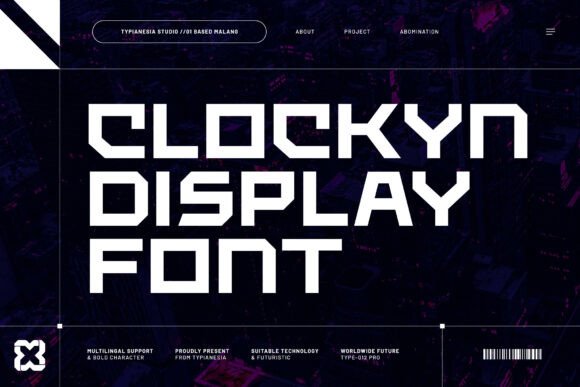
Introducing Clockyn Font: The Ultimate Display Typeface for Modern Designs
In the realm of digital design, a font can make or break the visual identity of a project. For those seeking a bold, futuristic, and attention-grabbing typeface, Clockyn Display Font emerges as a game-changer. Specifically crafted to embody a modern and technological aesthetic, Clockyn is perfect for a wide array of applications, from website design and sci-fi narratives to branding, posters, and digital advertising.
The Essence of Clockyn Display Font
Clockyn Display Font is distinguished by its bold and geometric characters, which lend it a unique, futuristic appeal. This typeface is not just about aesthetics; it’s about making a statement. Its “blocky” and assertive presence ensures that any message conveyed through it is clear, memorable, and impactful. Whether you’re designing a logo, crafting a poster, or creating a theme for esports, Clockyn’s solid characters and multilingual support make it an incredibly versatile choice.
Applications of Clockyn Display Font
The versatility of Clockyn Display Font is one of its most compelling attributes. Here are some of the key areas where Clockyn truly shines:
- Website Design: Elevate your website’s visual identity with a modern and technological look that captures visitors’ attention.
- Sci-Fi and Cyberpunk: Perfect for narratives and projects that transport audiences to futuristic worlds.
- Branding: Create a lasting impression with a bold and memorable brand identity.
- Posters: Ideal for posters that need to stand out and convey a message powerfully.
- Game Titles and Esports Themes: Give your game or esports event a professional and competitive edge.
- Advertising Campaigns: Use Clockyn to make your ads more engaging and noticeable.
- Digital Technology: Showcase your tech products or services with a modern and sleek typographic style.
- Logos: Design logos that are not only visually appealing but also convey a sense of innovation and forward-thinking.
Why Choose Clockyn Display Font?
Choosing Clockyn Display Font for your project comes with several benefits:
- Multilingual Support: Reach a broader audience with a font that supports multiple languages.
- Versatility: Suitable for a wide range of projects, from digital to print.
- Impactful Design: Its bold and geometric design ensures your project stands out.
- Easy to Read: Despite its boldness, Clockyn maintains clarity, making it easy for audiences to read and understand.
Tips for Using Clockyn Display Font Effectively
To maximize the potential of Clockyn Display Font, consider the following tips:
- Pair with Simpler Fonts: When using Clockyn for headings, pair it with simpler fonts for body text to maintain readability.
- Adjust Size and Color: Experiment with different sizes and colors to emphasize certain words or phrases.
- Consider Contrast: Ensure there’s sufficient contrast between the text and background to maintain visibility.
Clockyn Display Font is more than just a typeface; it’s a design statement. Its futuristic and bold geometric characters make it the perfect choice for anyone looking to infuse their project with a modern and technological vibe. Whether you’re a designer, a craftsperson, or a digital entrepreneur, Clockyn offers the tools to make your project stand out in the digital era. Embrace Clockyn Display Font for your next project and experience the power of typography in elevating your design to new heights.